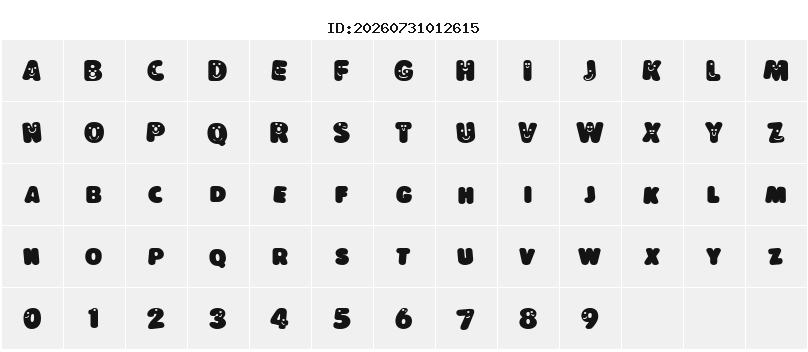
LoKinderSchrift Preview
• Font Name: LoKinderSchrift
• Font Style: Dunkel
• Font ID: LoKinderSchrift Dunkel kerned by URW Kernus 11.05.1994
• Full Font Name: LoKinderSchrift Dunkel
• Version: 1.0 Wed May 11 19:05:28 1994 Kernus: V2.0
• PostScript Name: LoKinderSchrift-Dunkel
About LoKinderSchrift.ttf
LoKinderSchrift.ttf is a modern, elegant sans-serif font designed for ultimate readability and visual harmony. Perfect for branding, headlines, web design, and print materials.